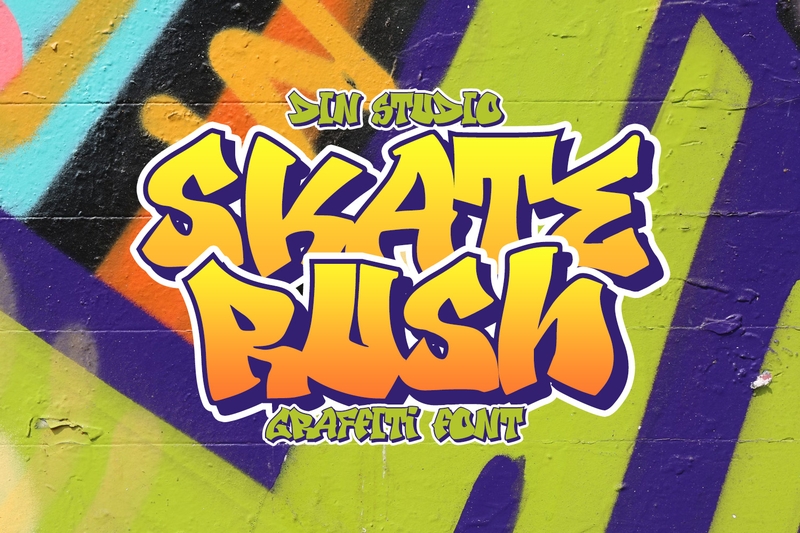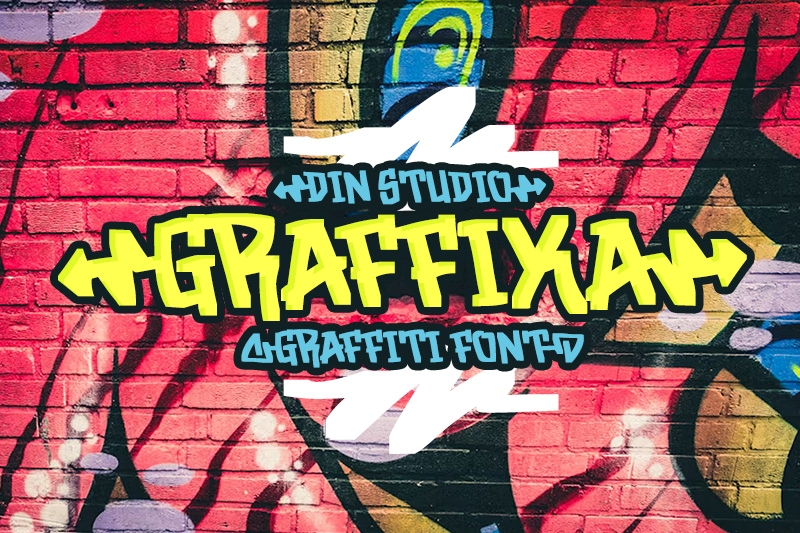
In the world of visual design, typography does not only function as the medium to deliver information. It is also the important element that shapes the character and atmosphere of an artwork. One of them is the graffiti display font. This font style can create an energetic character with a street art atmosphere. With an expressive, dynamic, and spirited visual appearance, this font type can present a bold visual that appeals to the audience.
The graffiti display font has a more dynamic, unique, and artistic letterform than other typical display fonts. With various visual details, including spray paint effects, brushstrokes, and genuine graffiti-looking textures, this style provides a strong urban nuance. That’s why it is often used in posters, musical album covers, social media content, merchandise, and more.
This article will help you find the most suitable graffiti display font for your project needs. We provide 12 graffiti display fonts with various visual characters and appeals. Each of these fonts offers distinct traits that inspire you to create creative, characterful, and appealing designs.
Skate Rush is a graffiti display font that shows a strong urban character through its bold, dynamic, and energetic letterforms. The distinctiveness of this font is in its graffiti-styled design, inspired by street art culture. With sharp letter corners, expressive curves, and strikingly bold outlines, Skate Rush is perfect for urban, street art, and musical-themed designs. The visual character of this font surely creates a daring and creative impression with a strong appeal.
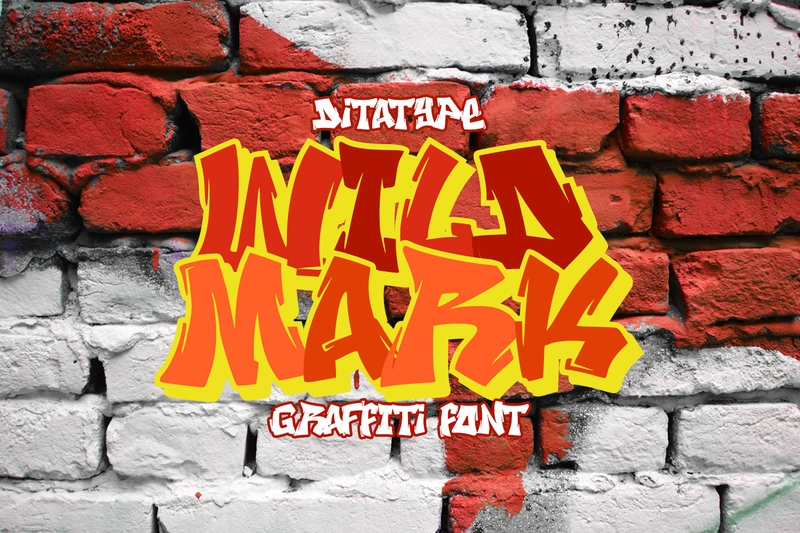
With a distinctive visual character, Wild Mark presents a striking, energetic, and expressive graffiti display font. It is a distinctive font with wildstyle letterforms, presenting a free, interconnected structure that is full of dynamic, sharp curves. Wild Mark’s visual characters, complete with its street art nuance, make it ideal for posters, streetwear designs, musical album covers, and more strongly urban visual projects.
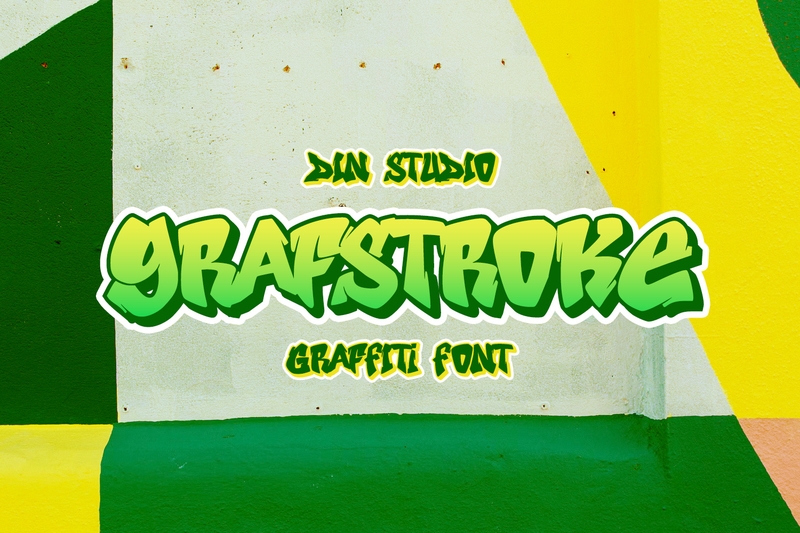
As a graffiti display font, Grafstroke offers a bold, expressive, and recognizable visual. This font is distinctive with its rounded, bubble graffiti-style letterforms. Moreover, its proportions are also precise and incredibly stylish. The bold outlines surrounding each character strengthen the visual identity and appeal to the eyes. The character creates an urban impression that is chill and creative, making it perfect for various design needs.
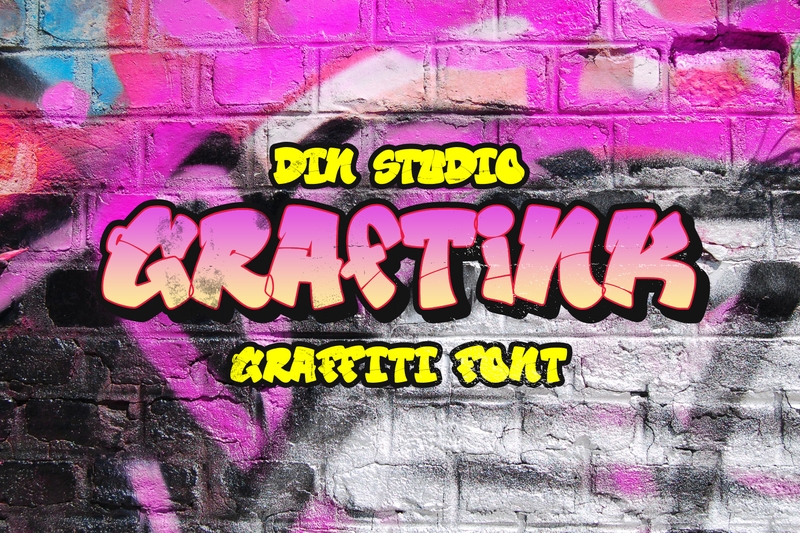
Graftink comes with a bold, dynamic, and characterful letterform, making it a perfect modern graffiti font. Its consistent, rounded bubble letterforms make it expressive and easily recognizable. Furthermore, the bold outlines with a shadow effect in each character strengthen the visual dimension of this font. Using Graftink in posters, merchandise, social media content, or other urban-themed creative projects will be ideal.
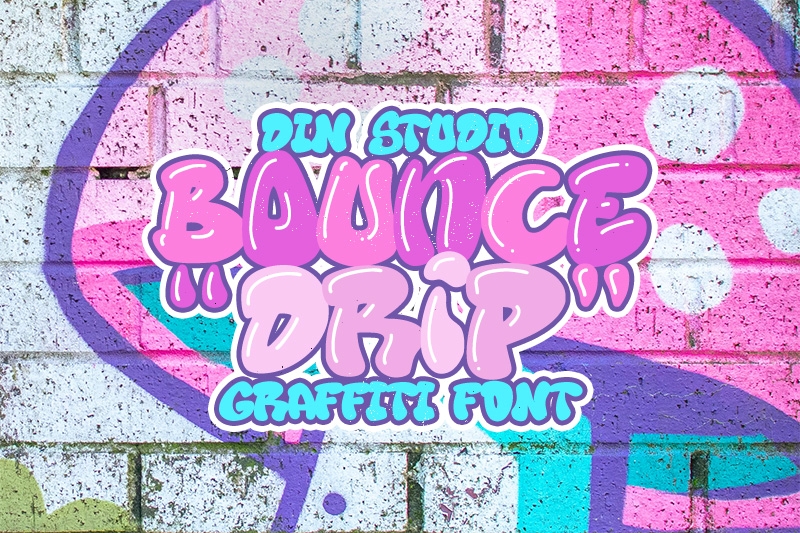
The uniqueness of Bounce Drip lies in its bubble-style letterforms, which are consistent, complete with rounded curves and energetic characters. As a graffiti display font, Bounce Drip presents a cheerful and recognizable visual style, creating a friendly and expressive impression at the same time. Additionally, the highlight details in each character strengthen the visual dimension even more, making the whole look much livelier. The combination of these elements makes Bounce Drip ideal in presenting a creative and playful nuance in any designs.
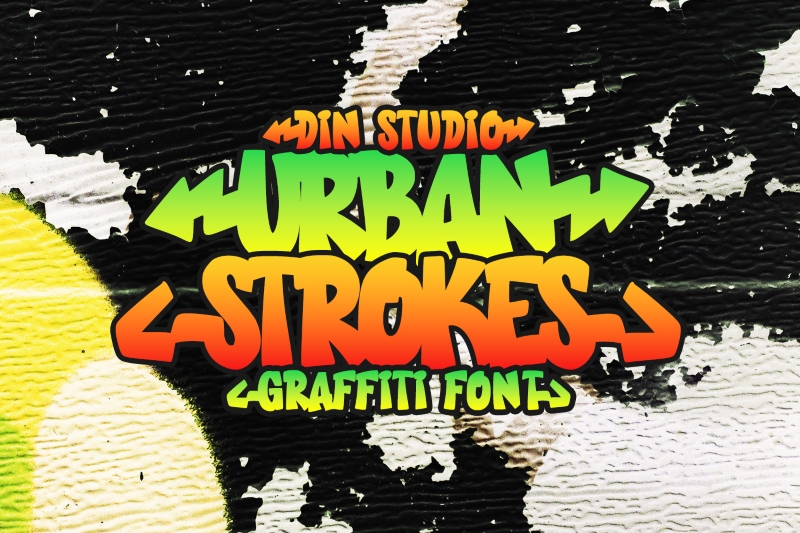
Many designers are seeking a strong urban style that can exude a street art energy. Urban Strokes offers all the essential features that a graffiti display font needs to achieve this effect. The bold and dynamic letterforms combined with solid details create a sense of bravery and movement. The outline addition in the design preview makes each character clearer and strengthens the visual appeal. Hence, the combination makes Urban Strokes easily able to evoke a modern, expressive street art nuance.
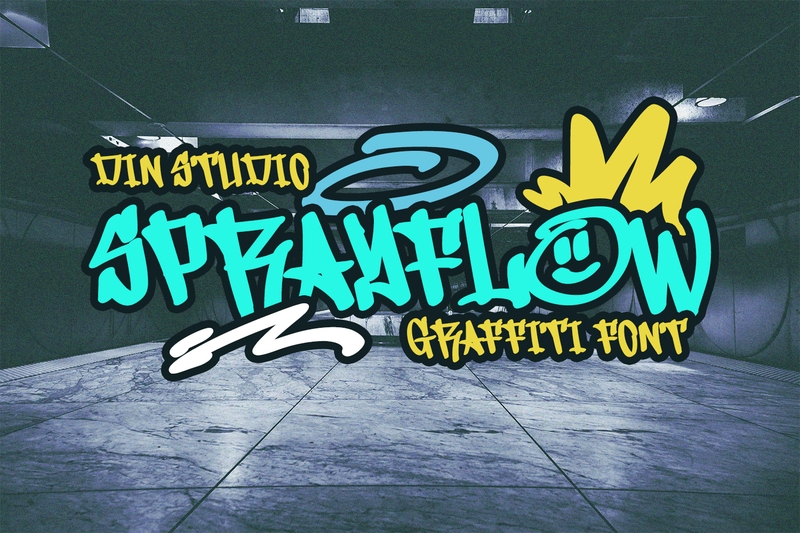
Sprayflow’s main appeal is in its expressive character of handstyle graffiti-inspired letterforms. The uniqueness of this font lies in the flowing strokes, dynamic letter structure, and decorative elements that enhance the street art vibe. Additionally, the combination of thick outlines in the preview design adds firmness and an artistic impression, giving Sprayflow an authentic, creative, and visually energetic urban appearance.
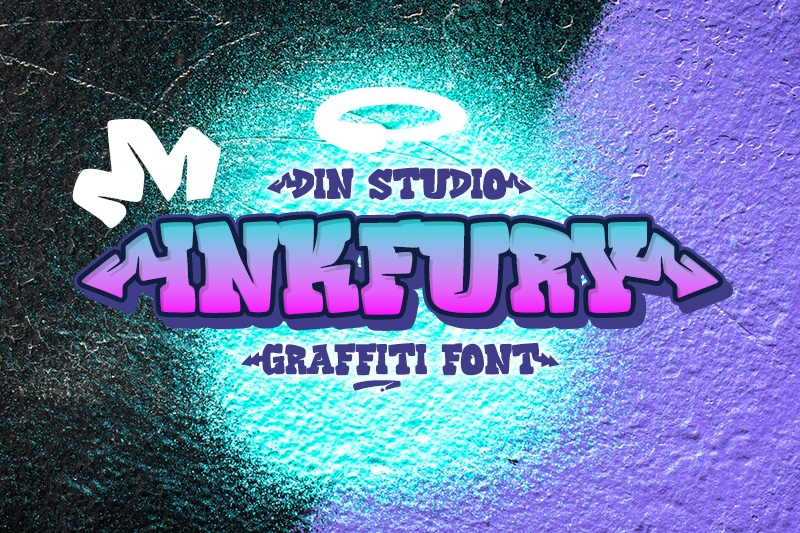
Bringing up the authentic street art aesthetics, Inkfury is a graffiti display font with bold, proportional bubble characters. The distinctiveness of this font can be seen in its consistently rounded letter edges, allowing it to appear friendlier compared to the normally aggressive graffiti fonts. The balanced letter structure also helps maintain readability without sacrificing its urban identity. Overall, the combination creates a dynamic and energetic appearance that is distinctive of the street art culture.